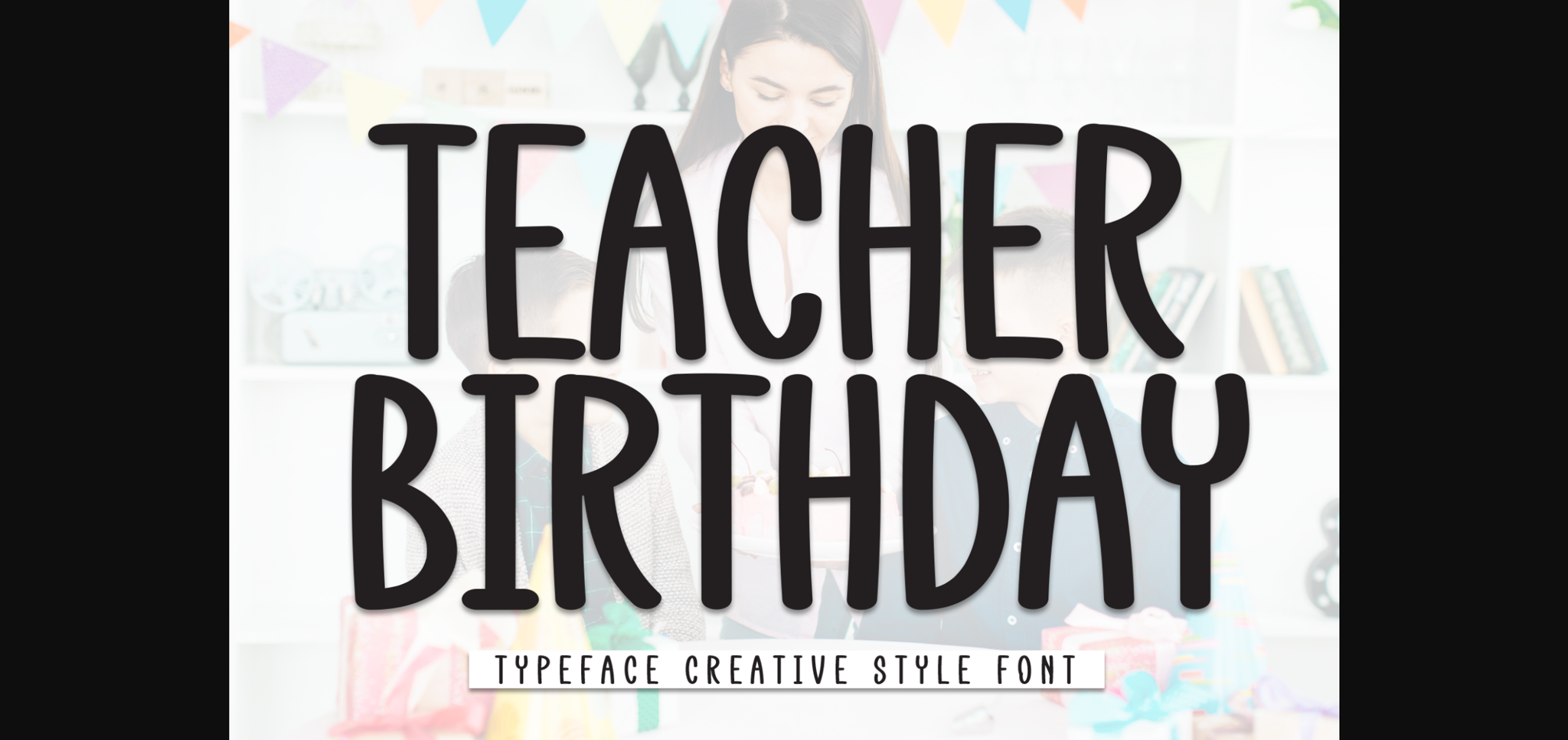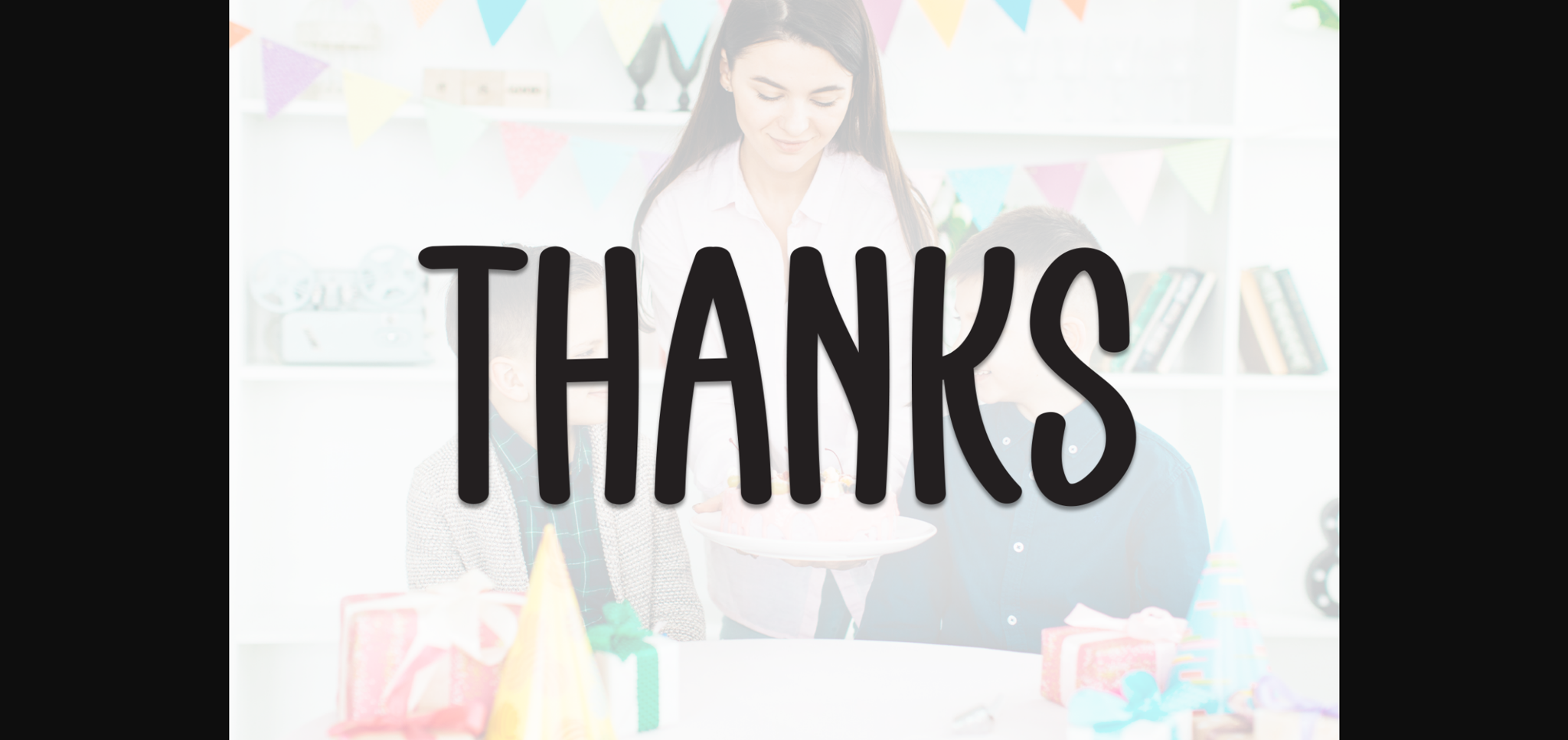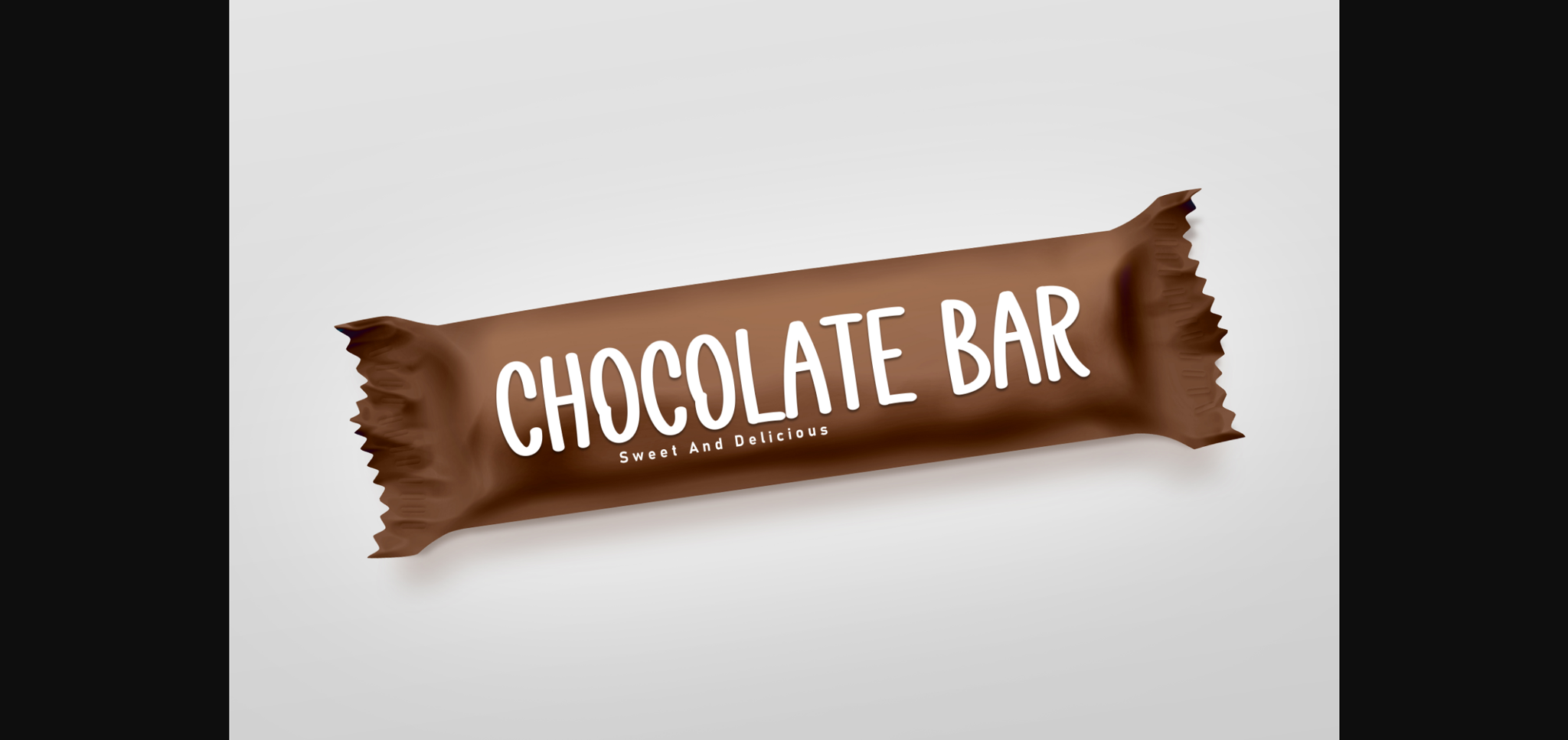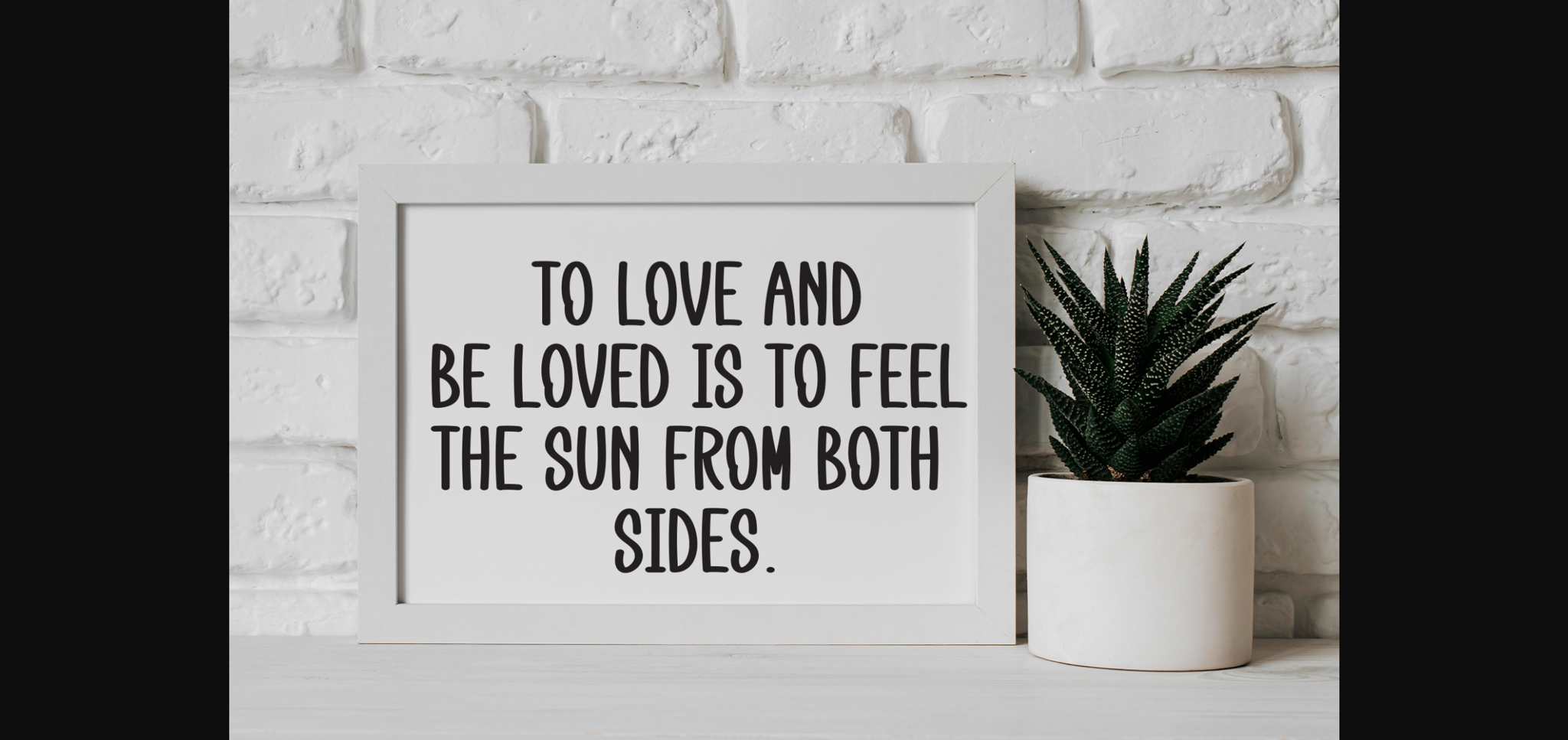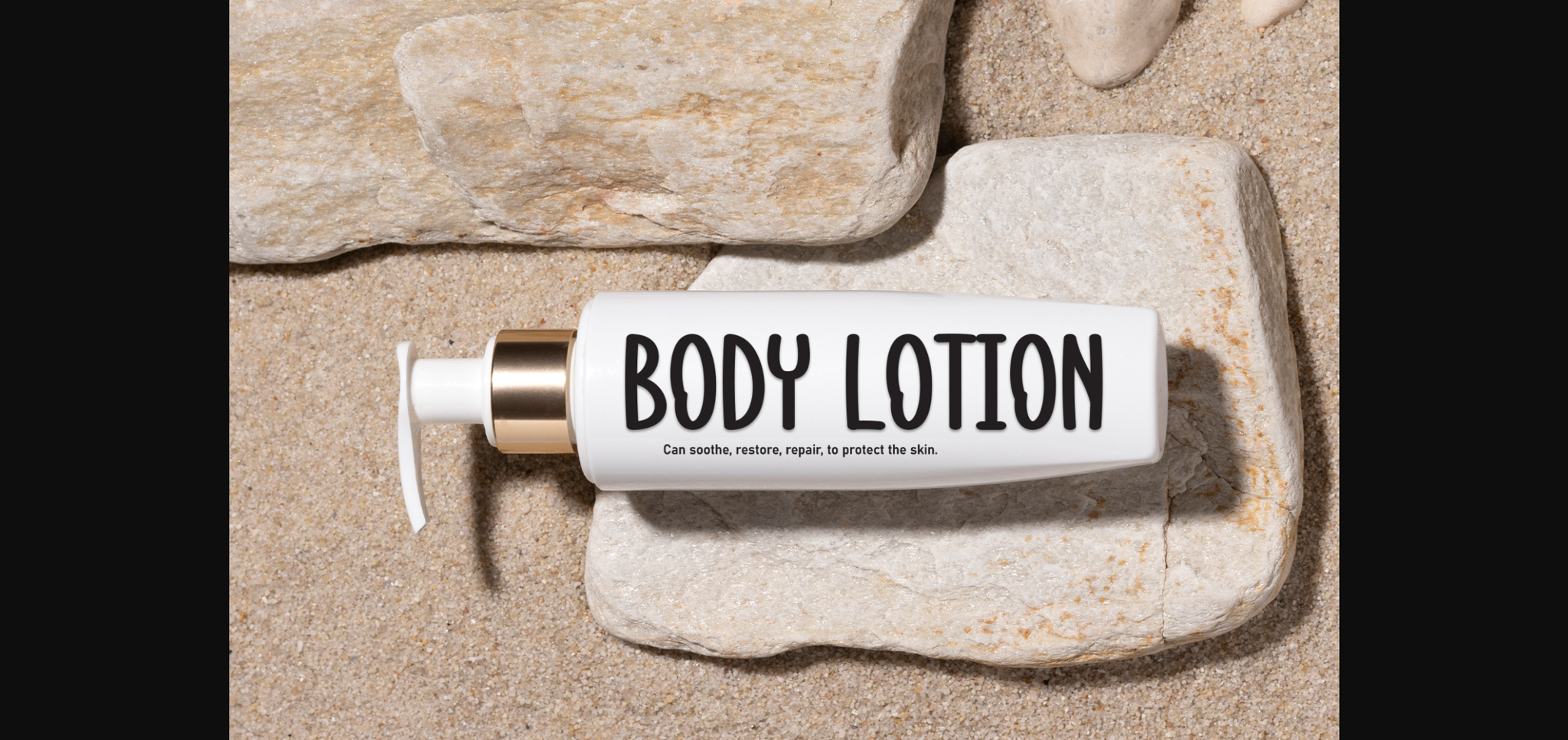
Teacher Birthday Font
About Teacher Birthday Font
Teacher Birthday is a sweet and friendly sans-serif font. Cute and versatile, this font is ideal for writing wedding invitations, cards, or any other design that might need a fun touch!